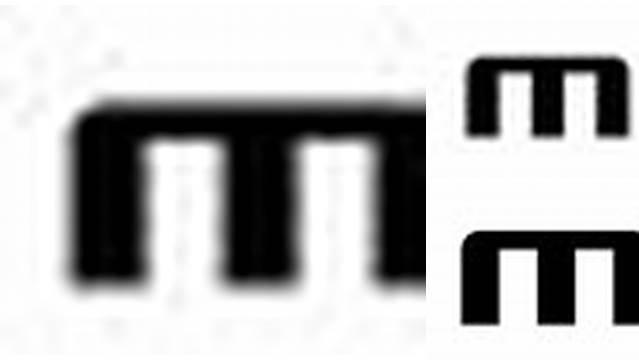
MyCard Black Font: Free Download Guide & Alternatives
What is MyCard Black Font?
MyCard black font is a popular typeface known for its bold, modern, and clean design. It's a sans-serif font, which means it lacks the small decorative strokes (serifs) found in some other font styles. This makes it highly readable and suitable for a wide range of applications, from headlines and logos to body text and web design. The MyCard black font exudes confidence and sophistication, making it a favorite choice for projects that demand a strong and professional aesthetic. Its versatility extends to both print and digital media, making it a valuable asset for designers and creatives alike.
The MyCard black font's appeal lies in its ability to command attention without sacrificing readability. The clean lines and robust letterforms ensure that text remains legible even at smaller sizes, making it ideal for body text as well as headlines. Its modern aesthetic aligns well with contemporary design trends, while its professional demeanor lends itself to corporate branding and formal communications. Whether you're designing a website, crafting a brochure, or creating a logo, MyCard black font can help you achieve a polished and impactful result. Its adaptability across different platforms and media types ensures consistency in your brand messaging, a crucial element of successful brand identity.
Furthermore, the MyCard black font is often chosen for its ability to convey a sense of authority and trustworthiness. The bold weight and clean lines project an image of competence and reliability, making it a suitable choice for businesses and organizations that want to establish credibility with their audience. In the realm of web design, the font's clear legibility ensures a positive user experience, contributing to higher engagement and conversion rates. In print, its crisp appearance ensures that your message is delivered with clarity and impact. The font's popularity is also a testament to its timeless quality; it manages to stay relevant even as design trends evolve.
Key Features of MyCard Black Font
The MyCard black font boasts several key features that make it a standout choice for designers:
- Bold and impactful design: The thick strokes and strong letterforms make a statement and grab attention.
- Clean and modern aesthetic: Its sans-serif nature gives it a contemporary feel, perfect for modern designs.
- Excellent readability: Even at small sizes, the font remains legible, making it suitable for body text.
- Versatile application: It works well for headlines, logos, body text, web design, and more.
- Professional appearance: It exudes confidence and sophistication, ideal for corporate branding.
These features collectively contribute to the font's widespread appeal and make it a go-to option for various design needs. The bold design ensures that your message stands out, while the clean aesthetic keeps it looking fresh and modern. The excellent readability is crucial for ensuring that your audience can easily consume your content, and the versatile application means you can use it across different mediums and platforms. The professional appearance of the font helps to establish trust and credibility with your audience.
Moreover, the impact of these features extends beyond mere aesthetics. The bold design, for instance, is not just about making a statement; it also aids in creating a strong visual hierarchy in your designs, guiding the viewer's eye to the most important elements. The clean lines of the font contribute to a sense of order and clarity, which can be particularly beneficial in complex layouts. The readability factor is paramount in ensuring that your message is accessible to a wide audience, regardless of the medium or device they are using. The font's versatility is a major advantage for designers who need a reliable typeface that can adapt to various project requirements. And the professional appearance is key to building a brand image that exudes competence and trustworthiness.